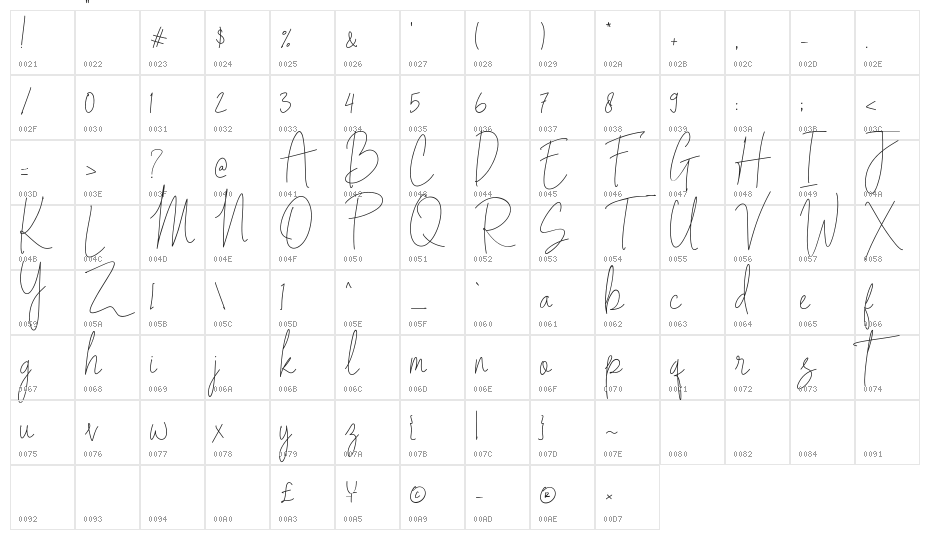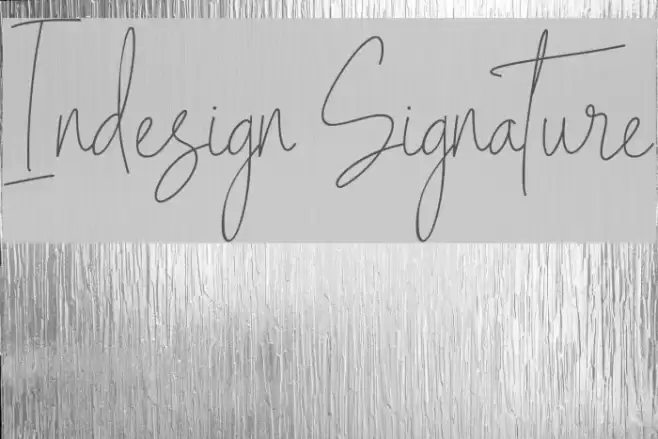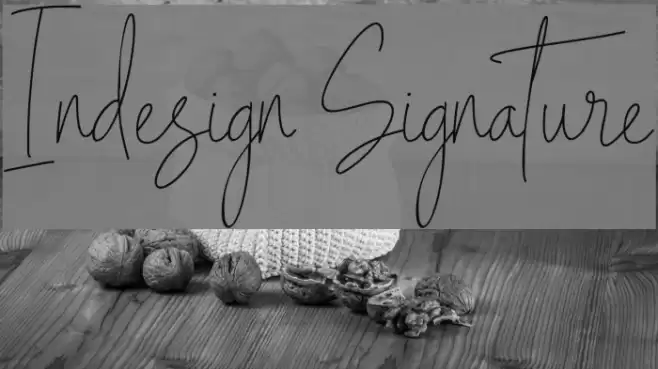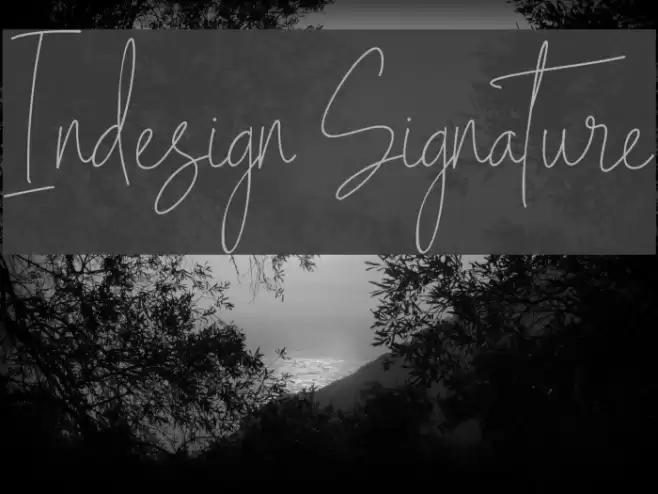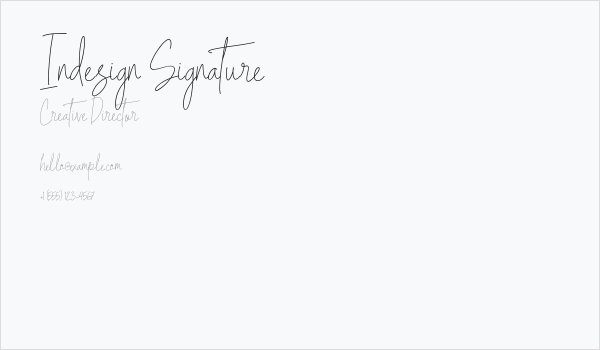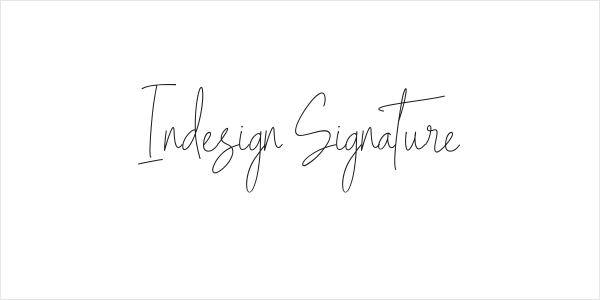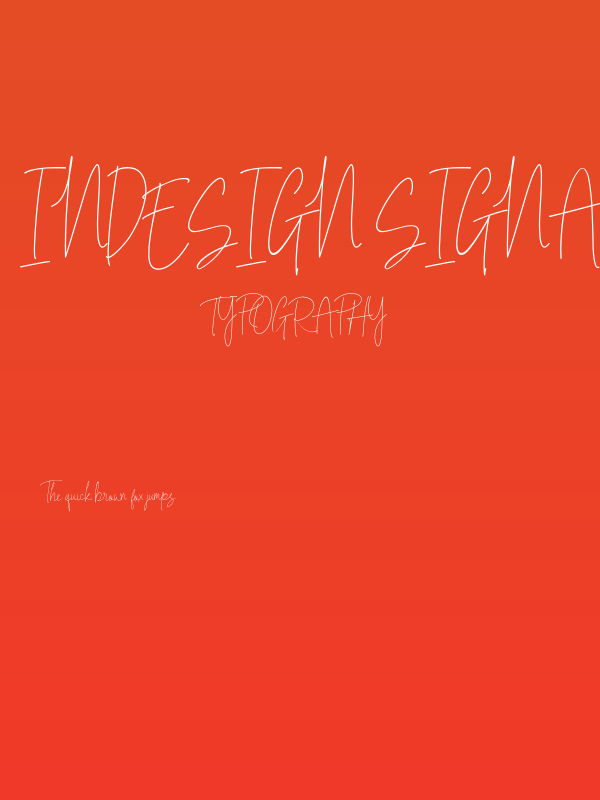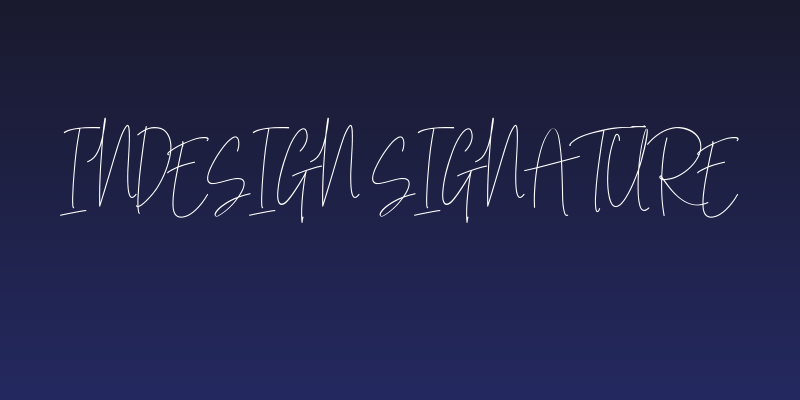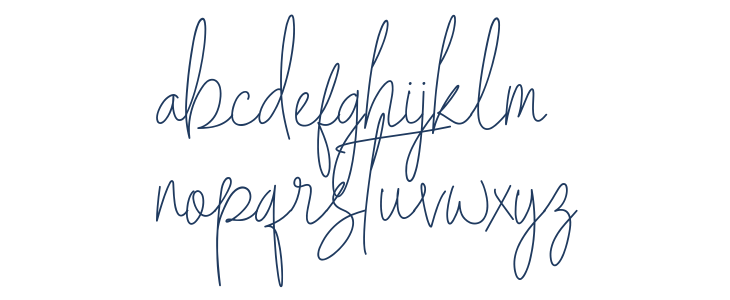
Indesign Signature Font
Indesign Signature Description
This font exudes a casual and personal touch, reminiscent of a handwritten signature. The letters are elegantly elongated with a fluid motion, giving it a sophisticated yet approachable feel. The uppercase letters maintain a consistent height, while the lowercase letters have a playful, slightly irregular baseline, adding to the handwritten charm. The numerals and special characters follow the same style, ensuring a cohesive look across all text. The strokes are thin and delicate, with a consistent width throughout, enhancing the font's airy and light appearance. This style is perfect for adding a personal touch to any design, making it ideal for projects that require a sense of individuality and elegance.
| Use Case | Logos, Invitations, Personal branding |
| Proposed Projects | Ideal for personal branding, invitations, greeting cards, and any project needing a personal touch. |